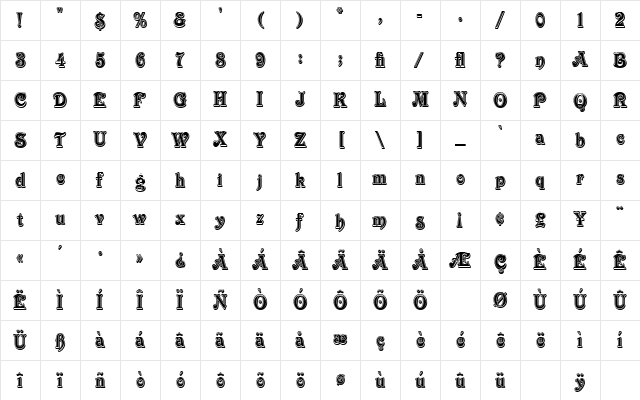
Victorian Inline Shaded LET Plain
Foundry: COPYRIGHT ESSELTE LETRASET LTD
Design Context for Victorian Inline Shaded LET
Victorian Inline Shaded LET is built around its visual character rather than neutral utility - its distinctive forms are designed to make an impression at display sizes.
Font Pairing: Pair with a clean neutral sans-serif for body copy to let Victorian Inline Shaded LET's character lead without overwhelming the composition.
Pro Tip: Use Victorian Inline Shaded LET exclusively at display sizes - it was designed to be seen, not read at length. Let a neutral companion handle body copy.
Who designed the Victorian Inline Shaded LET Plain font?